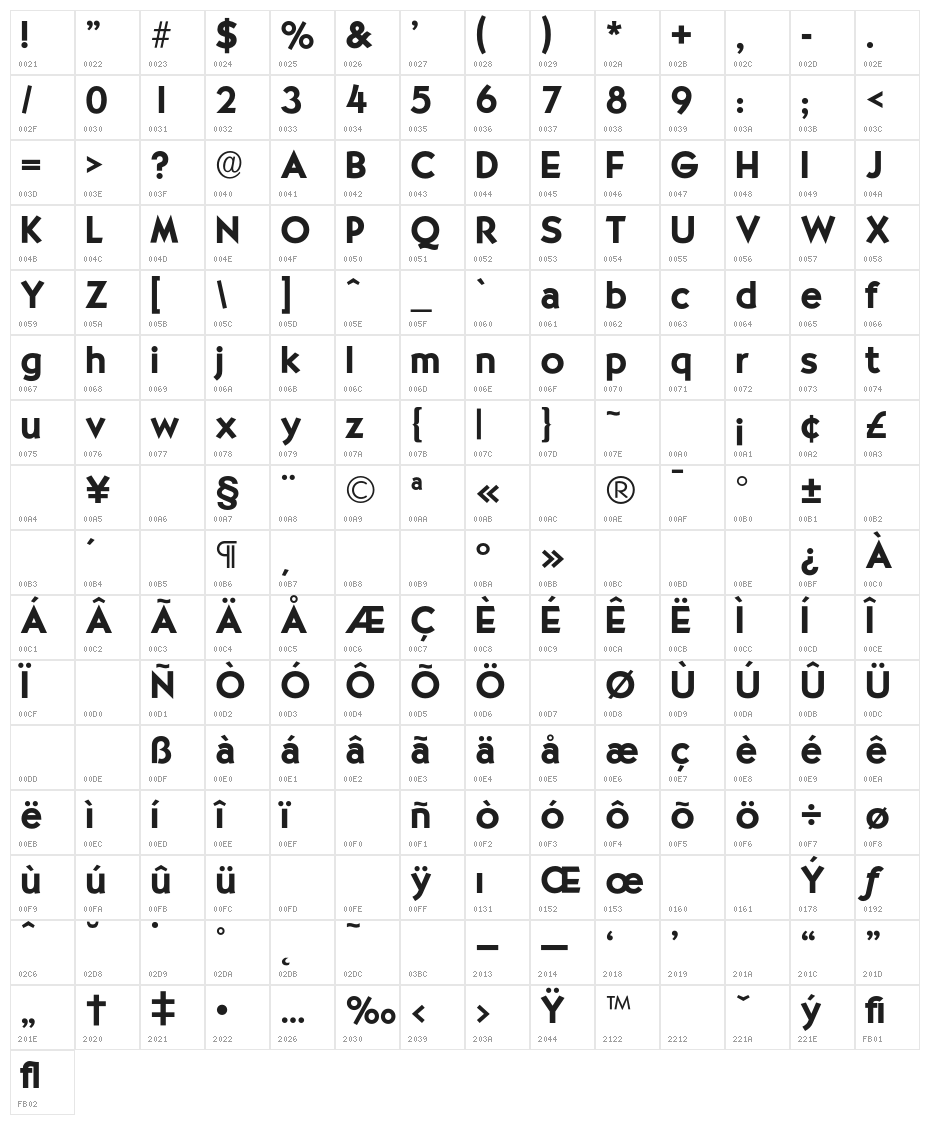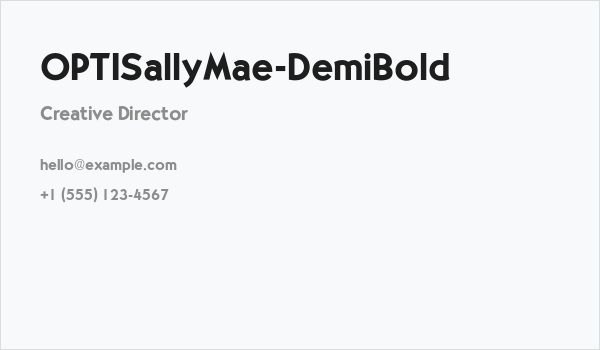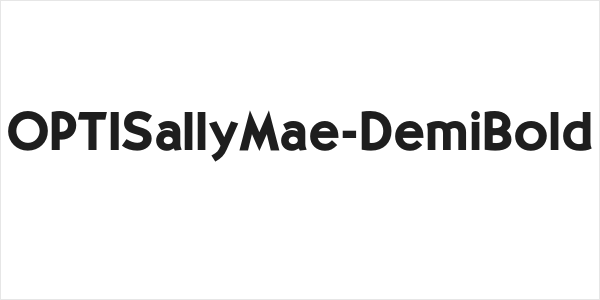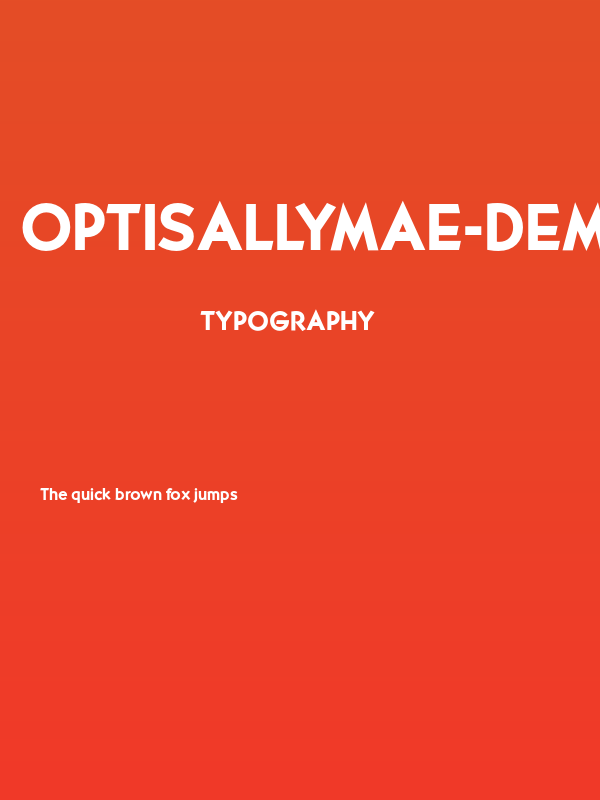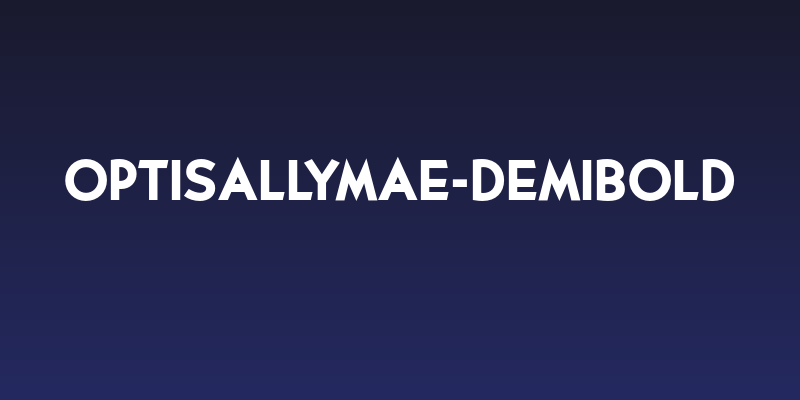
OPTISallyMae-DemiBold Font
OPTISallyMae-DemiBold Description
This font features a bold and modern sans-serif style, characterized by clean lines and a strong presence. The uppercase and lowercase letters are well-proportioned, offering a harmonious balance between readability and aesthetic appeal. The numerals are distinct and easy to read, making them suitable for various applications. Special characters are included, maintaining the font's cohesive design. The overall look is contemporary and versatile, suitable for both digital and print media.
| Proposed Projects | Ideal for branding, advertising, headlines, and digital content where a modern and bold statement is needed. |